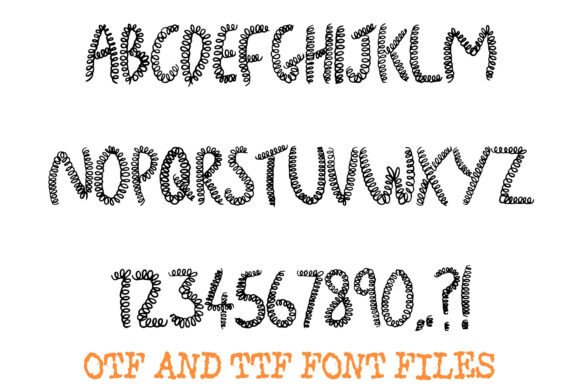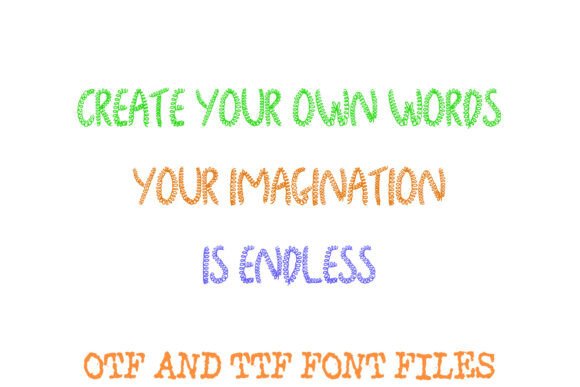
Get Ready to Spring into Creativity
Have you ever stared at a blank page, trying to come up with the perfect design concept, only to have your creativity spark when you pick up a pen and start doodling? The lines, the curves, the movement – it’s a liberating feeling that can get your creative juices flowing in no time. That’s exactly what the Bouncy Spring Coil Font is all about: capturing the essence of hand-drawn creativity in a digital format.
This charming display typeface is designed to add a playful touch to your designs, with its tightly coiled lines creating a whimsical effect that’s reminiscent of a springy slinky or wireframe. Whether you’re working on a modern boutique, a party invitation, or social media content, the Bouncy Spring Coil Font is the perfect addition to your design toolkit, offering a unique and artistic look that’s both professional and eye-catching.
With its intricate, circular loop construction, this font is sure to stand out from the crowd, making it a valuable asset for designers looking to add some personality to their work.
Bouncy Spring Coil Font Key Features
- Font Style: Bouncy Spring Coil is a playful, handwritten font designed for creative and informal purposes.
- Font Size: The font size varies depending on the context, but it’s generally suitable for titles, headings, and short paragraphs.
- Resolution: Optimized for high-resolution displays, making it perfect for digital designs, social media graphics, and web content.
- Unique Characteristics: The font features a distinctive, bouncy coil design with a mix of uppercase and lowercase letters, creating a whimsical and fun atmosphere.
- Legibility: Despite its playful nature, Bouncy Spring Coil remains legible even at smaller font sizes, making it suitable for a wide range of applications.
Bouncy Spring Coil Font Review
I recently had the chance to work with the Bouncy Spring Coil Font, and I must say it’s a unique addition to any designer’s toolkit. ✨ One of the things that really stands out about this font is its versatility. It can be used for both playful and professional projects, making it a great choice for designers who like to experiment with different styles.
Another advantage of the Bouncy Spring Coil Font is its high level of customization. ✨ The font is highly customizable, allowing designers to adjust the size, color, and spacing to suit their specific needs. This level of control is a game-changer for designers who value precision and attention to detail.
While the Bouncy Spring Coil Font is a great addition to any designer’s toolkit, it’s not without its limitations. ⚠️ One of the main drawbacks is its complexity. The font has a lot of moving parts, which can make it difficult to work with for designers who are new to font design.
Another limitation of the Bouncy Spring Coil Font is its limited character set. ⚠️ While the font includes a wide range of letters and symbols, it’s not as comprehensive as some other fonts on the market.
Overall, I would say that the Bouncy Spring Coil Font is a solid choice for designers who are looking for a unique and highly customizable font. While it may have some limitations, the benefits far outweigh the drawbacks. With a little practice and patience, designers can unlock the full potential of this font and create truly amazing designs.
Bouncy Spring Coil Font: A Practical Application Guide
To get the most out of the Bouncy Spring Coil font, use it sparingly and in creative ways. It’s perfect for:
- Quotes and captions
- Emphasizing important text
The Bouncy Spring Coil font is commonly used in:
- Graphic design projects
- Web design projects
Alternatives to Bouncy Spring Coil Font
The Bouncy Spring Coil Font is a playful, handwritten font that adds a touch of whimsy to designs. However, it may not be suitable for all projects. Here are some alternatives to consider:
Great Vibes is a modern, cursive script font that conveys a sense of relaxation and friendliness. It’s perfect for designs that require a casual, approachable tone. Great Vibes is more refined and elegant than Bouncy Spring Coil Font, making it suitable for a wider range of applications.